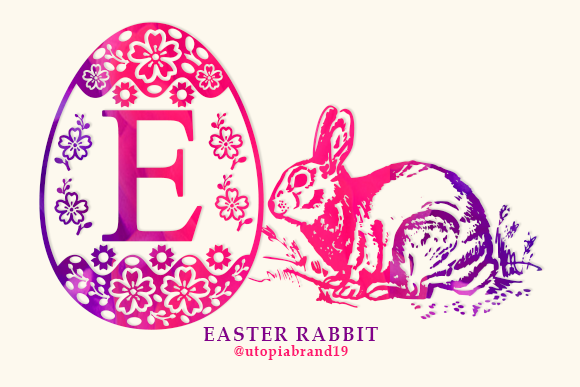
Are you ready to add a touch of Easter magic to your designs? Look no further! Embark on a whimsical journey with Easter Rabbit, a captivating decorative font that will transform your creations into masterpieces. Crafted by the talented utopiabrand19, this font is a blend of simplicity and visual enchantment, guaranteed to make your designs stand out from the crowd.
Picture this: a font so charming, it will bring a smile to your face. Easter Rabbit is not just a font; it's an experience. Its playful curves and cheerful characters capture the essence of Easter, infusing your designs with a sense of joy and wonder. Imagine your designs adorned with Easter Rabbit, exuding a warmth that radiates happiness and celebration.
With its versatility, Easter Rabbit effortlessly adapts to any project, be it a cheerful Easter greeting card, an eye-catching social media post, or an unforgettable T-shirt design for Mom. Its versatility knows no bounds, making it the perfect choice for designers seeking a font that effortlessly blends creativity and functionality.
Visualize your designs transformed by Easter Rabbit's magic. Its carefully crafted characters dance across the screen, captivating your audience with their charm. Your designs will become irresistible, exuding a charm that speaks volumes. Prepare to witness the transformation as Easter Rabbit elevates your work to new heights.
So, embrace the Easter spirit and let Easter Rabbit be your creative companion. With each use, this font will ignite your imagination and unlock endless possibilities. Experience the joy of creating designs that resonate with your audience, leaving a lasting impression that they won't soon forget.